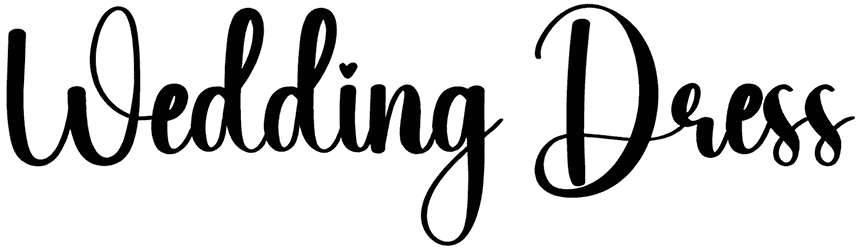
Wedding Dress Font
So we have a fancy font named Wedding Dress to share with you today, but can you please do something else with it other than promoting your wedding dress stores too? That’s all we’re asking!
After all, it’ll be such a waste of this gorgeous wedding font and its sexy curves and decorative ligatures if Wedding Dress doesn’t end up in your anniversary invitations, Valentine’s Day posters, or even some luxury projects like restaurant menus, art galleries, and so on.